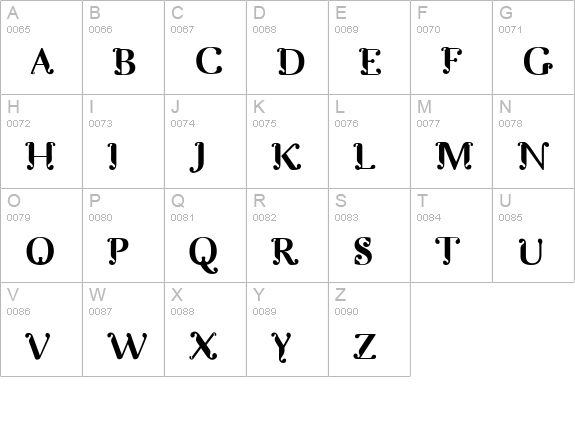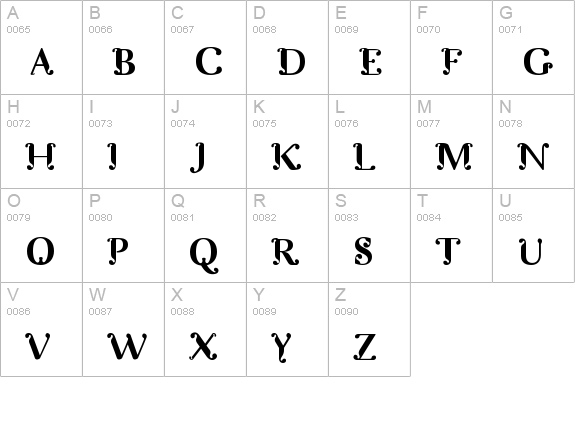
TheGanesha Font Details
TheGanesha font is a stunning typeface that captures the essence of elegance and beauty. Its intricate design and delicate curves make it a perfect choice for any project that requires a touch of sophistication. TheGanesha font is inspired by the traditional Indian art form and pays homage to the beloved deity, Lord Ganesha. This font is not only visually appealing but also highly versatile. It can be used for various purposes, including branding, headlines, invitations, and more. TheGanesha font effortlessly blends traditional and modern elements, resulting in a timeless and unique aesthetic. What makes TheGanesha font even more remarkable is that it is available for free! Yes, you read that right. You can freely download this extraordinary font at FontsMarket.com. This means that you can add a touch of elegance to your designs without breaking the bank. Whether you're a professional designer or a creative enthusiast, TheGanesha font is sure to become your go-to typeface. Its graceful curves and intricate details will elevate your designs and captivate your audience. So why wait? Download TheGanesha font for free at FontsMarket.com and unlock a world of possibilities for your next project.